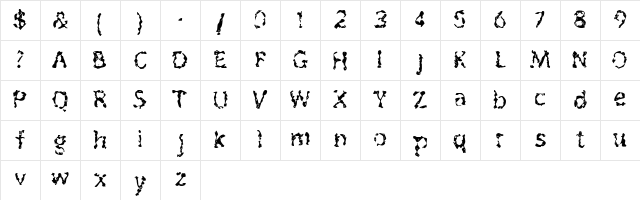
outofink Regular
Design Context for outofink
outofink is a composed and adaptable typeface that performs quietly and consistently across a wide range of design contexts.